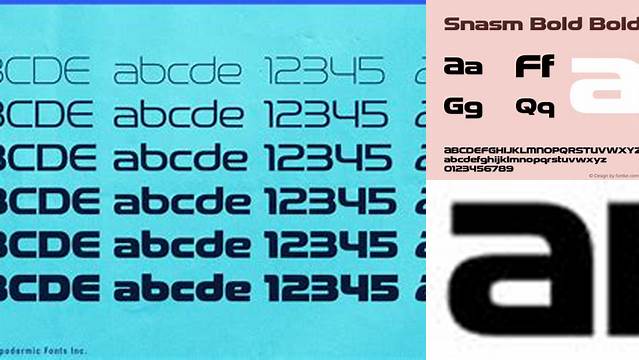
Snasm Bold Font Family: Free Download & Usage Guide
Hey guys! Are you on the hunt for a bold and impactful font to elevate your design projects? Look no further! In this comprehensive guide, we'll dive deep into the Snasm Bold font family, exploring its features, benefits, and, most importantly, how you can snag it for free. We'll cover everything from its versatility to its aesthetic appeal, ensuring you have all the information you need to decide if Snasm Bold is the perfect fit for your next creative endeavor. So, let's get started and unlock the potential of this fantastic font!
What is the Snasm Bold Font Family?
The Snasm Bold font family is a typeface designed to make a statement. It's characterized by its strong, confident lines and robust letterforms, making it ideal for headlines, logos, posters, and any other application where you need to grab attention. But what exactly makes this font family so special? Let's break it down. First off, the “bold” in Snasm Bold isn’t just a suggestion; it's a promise. Each character is crafted with substantial weight, ensuring maximum impact. This makes it highly legible even from a distance, a crucial factor for signage and large-format printing. Beyond its weight, Snasm Bold also boasts a unique personality. It’s not just another generic bold font; it has a distinct character that blends modernity with a touch of retro flair. This makes it incredibly versatile, suitable for a wide range of design styles, from minimalist and contemporary to vintage and industrial. The Snasm Bold family typically includes various weights and styles, such as regular, italic, and condensed versions, giving designers even more flexibility. This variety allows you to maintain a consistent visual identity across different elements of your project, ensuring a cohesive and professional look. Whether you're designing a website, creating marketing materials, or working on a branding project, the Snasm Bold font family offers a powerful and stylish solution.
Key Features and Benefits of Snasm Bold
When you're choosing a font, you're not just picking a style; you're selecting a tool that can significantly impact your message. Snasm Bold comes with a whole bunch of features and benefits that make it a standout choice. Let’s talk about some of the key advantages. One of the most noticeable features of Snasm Bold is its legibility. The thick strokes and clear letterforms ensure that your text is easily readable, no matter the size or distance. This is crucial for ensuring your message is effectively communicated, whether it’s on a billboard or a business card. Another great thing about Snasm Bold is its versatility. It's not a one-trick pony; this font works well in a variety of contexts. Need a strong headline for a website? Snasm Bold has you covered. Creating a logo that needs to stand out? Snasm Bold is perfect. Designing a poster that demands attention? You guessed it, Snasm Bold is the way to go. Its adaptability makes it a valuable asset in any designer's toolkit. Furthermore, Snasm Bold often includes multiple weights and styles within the family, giving you even more options. This means you can use different variations of the font to create a hierarchy in your design, highlighting key information and maintaining visual interest. For example, you might use the boldest weight for headlines, a lighter weight for body text, and an italic version for emphasis. This kind of flexibility is invaluable for creating a polished and professional look. Beyond its practical benefits, Snasm Bold also has a distinct aesthetic appeal. It’s modern yet timeless, with a touch of personality that sets it apart from more generic bold fonts. This makes it a great choice for projects that need to convey a sense of confidence and style. So, if you’re looking for a font that’s both functional and visually striking, Snasm Bold is definitely worth considering.
Tips for Using Snasm Bold in Your Designs
So, you've got Snasm Bold installed and you're itching to use it—awesome! But how do you make the most of this powerful font in your designs? Here are some tips and tricks to help you use Snasm Bold effectively and create eye-catching visuals. First, consider the hierarchy of your design. Snasm Bold is, well, bold! It’s perfect for headlines and titles that need to grab attention. Think about using it for the main headings on your website, the title of a poster, or the logo of your brand. Its strong presence will help draw the viewer's eye and create a clear focal point. However, be careful not to overuse it. If everything is bold, nothing stands out. Use Snasm Bold strategically to highlight the most important elements of your design. For body text, it’s generally best to choose a more readable font with a lighter weight. Pairing Snasm Bold with a simpler sans-serif or serif font can create a nice contrast and improve overall legibility. Think of Snasm Bold as the star of the show, and the body text as the supporting cast. Next up, think about the context of your design. Snasm Bold’s strong, confident appearance makes it suitable for a wide range of applications, but it’s not always the right choice. It works well for projects that need to convey a sense of strength, modernity, or impact. For example, it could be a great fit for a tech startup, a sports brand, or a music festival poster. On the other hand, it might not be the best choice for a project that requires a more delicate or elegant feel, such as a wedding invitation or a luxury brand. Consider the overall tone and message you want to convey and choose a font that aligns with that. Another tip is to experiment with different weights and styles within the Snasm Bold family, if available. Some font families include variations like light, regular, italic, and condensed versions, giving you more flexibility. Using different weights can help you create a visual hierarchy and add depth to your design. For example, you might use the boldest weight for the main headline, a lighter weight for subheadings, and an italic version for emphasis. Finally, always pay attention to spacing and kerning. Even the most beautiful font can look bad if it’s not properly spaced. Adjust the kerning (the space between individual letters) and the tracking (the overall space between characters) to ensure that your text is legible and visually appealing. Small adjustments can make a big difference in the overall look and feel of your design. By following these tips, you can harness the power of Snasm Bold and create designs that are both impactful and effective.
Alternative Bold Font Families to Consider
Conclusion: Snasm Bold and Beyond
Alright, guys, we've reached the end of our deep dive into the Snasm Bold font family! We've covered everything from its key features and benefits to where you can find it for free and how to use it effectively in your designs. Hopefully, you now have a solid understanding of what Snasm Bold has to offer and whether it's the right fit for your creative projects. Remember, a bold font can make a huge difference in the overall impact of your design. It can grab attention, convey confidence, and help your message stand out from the crowd. Snasm Bold, with its strong lines and versatile style, is a fantastic option for achieving these goals. But as we've also discussed, there's a vast world of font families out there, each with its own unique character. Exploring alternatives like Roboto, Montserrat, Oswald, Bebas Neue, and Open Sans can help you broaden your design toolkit and find the perfect typeface for every occasion. The key is to experiment and have fun! Don't be afraid to try different fonts in different contexts to see what works best. Think about the message you want to convey, the overall tone of your design, and the target audience you're trying to reach. And most importantly, make sure your font choice is legible and visually appealing. Whether you decide to use Snasm Bold or another bold font family, the tips and tricks we've discussed in this guide should help you create designs that are both impactful and effective. So go ahead, unleash your creativity, and let your designs speak volumes! Happy designing!